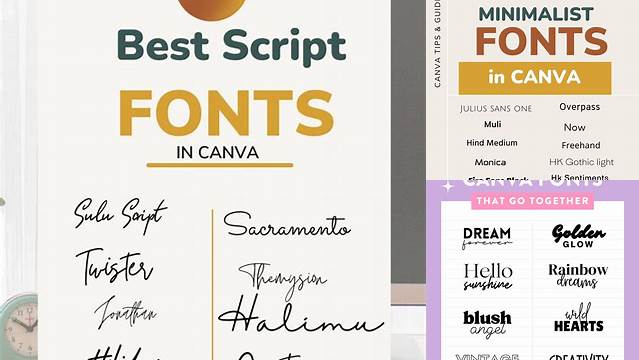
Canva Font Frenzy: Changing All Text Fonts Like A Pro
Hey everyone! Ever wished you could swap out all the text fonts in your Canva design with a single click? Well, guess what? You totally can! Today, we're diving deep into the world of Canva font magic, specifically how to change all text fonts in Canva. Whether you're a design newbie or a seasoned pro, this guide will walk you through the steps, tricks, and even some cool bonus tips to level up your Canva game. So, grab your favorite beverage, get comfy, and let's get started! We'll explore everything from the basics to some advanced techniques, ensuring you're a font-changing ninja by the end of this article.
How to Change Font Styles in Canva: The Quick Guide
Alright, let's kick things off with the basics. Changing font styles in Canva is a breeze, and it's the foundation for everything we'll cover. First things first, open your design in Canva. If you're starting from scratch, choose a template or create a custom size. Now, let's talk about how to select the text you want to modify. You can click directly on the text box to select it. Alternatively, you can select multiple text boxes at once by holding down the Shift key while clicking on each one. This is super handy when you want to change fonts across several elements simultaneously. Once you have your text selected, look at the top toolbar. You'll see a drop-down menu that displays the current font of your selected text. Clicking this will open the font selection panel, where the real fun begins. Here, you'll find a vast library of fonts, categorized by type and style. Canva also suggests fonts based on your brand kit or document styles, making it even easier to find the perfect match. Hover over a font to preview it on your selected text, giving you a real-time look at how it will appear. Once you find your desired font, simply click on it, and bam! Your text is updated. Remember, this method applies to individual text boxes or multiple selections, but we’re aiming for a complete overhaul of your design’s text – all at once.
Let's also talk about some of the nuances. For example, you might find that some fonts work better in specific sizes or weights. Experiment with different font sizes and styles (bold, italic) to see what complements your design best. Canva's text tools also allow you to adjust the font size, spacing, and alignment, giving you even more control over your text's appearance. And, don't forget about the color! You can change the font color from the same toolbar, ensuring your text pops against the background. If you're working with a brand, make sure to use your brand colors and fonts to maintain consistency. Remember to save your work frequently so you don't lose your progress. And, most importantly, have fun! Canva is all about creativity, so don't be afraid to experiment and try new things. That's how you'll discover the perfect font combinations and create stunning designs that captivate your audience.
Canva's Font Features: A Deep Dive
Canva isn’t just about changing fonts; it's a whole ecosystem of font features and tools. Let’s take a deeper dive into what makes Canva's font capabilities so impressive. First up, the font library. Canva boasts a huge selection of fonts, ranging from classic serifs and sans-serifs to playful scripts and modern display fonts. This variety ensures you'll find something that fits your style and brand. You can browse through different font categories, or use the search bar to find specific fonts by name or keyword. Canva's search function is really smart – it anticipates what you might be looking for. Beyond just selecting fonts, Canva offers tools to customize your text. You can adjust the font size, line spacing, letter spacing, and alignment. These features let you fine-tune your text to perfection. For example, increasing line spacing can improve readability in long paragraphs, while adjusting letter spacing can give your text a unique look. Canva also provides options for text effects. You can add shadows, outlines, and other effects to make your text stand out. These effects can be subtle or bold, depending on your design goals. Canva’s text effects are a great way to add depth and visual interest to your text elements. One of the coolest features is the ability to upload your own fonts. If you have a specific font that’s essential to your brand, you can upload it to Canva and use it in your designs. This ensures brand consistency across all your visual materials. Plus, Canva integrates seamlessly with Google Fonts, giving you access to thousands of additional fonts. You can easily browse and use any font available on Google Fonts within your Canva designs. Canva keeps things organized too, with features like font pairing suggestions and font favorites. These tools help you find the perfect font combinations and save your favorite fonts for easy access. Remember, mastering these font features is key to creating professional-looking designs.
Accessing and Using Canva's Font Library
Alright, let’s get down to brass tacks and talk about how to actually access and use Canva’s vast font library. First, you’ll need to have a Canva account, either free or paid. Once you're logged in and have a design open, the process is pretty intuitive. Select a text box. As mentioned earlier, you can click directly on the text or select multiple text boxes by holding down the Shift key. This is super handy if you want to change the font across several elements simultaneously. Once you've selected the text, look up to the top toolbar. This is where the magic happens. You’ll see a drop-down menu displaying the current font of your selected text. Clicking this will unveil the font selection panel, and this is where all the font goodness lives. Here, you'll find the massive library of fonts, neatly organized. You can browse through different categories like serif, sans-serif, handwriting, and more. The categories help you narrow your search. Or, you can use the search bar to look for specific fonts by name or keyword. If you have a specific font in mind, just type it in. Canva’s search is really efficient. It anticipates what you might be looking for, which saves time. Another cool trick is using Canva's font pairing suggestions. Canva often suggests font pairings, which is a fantastic way to discover new font combinations that complement each other. It's like having a personal font stylist. Once you find the font you want, simply click on it to apply it to your selected text. The font will instantly update, allowing you to see how it looks in real-time. If you're working with a brand, make sure to use your brand kit, which lets you save your preferred fonts. This keeps all your designs consistent. Don’t forget to experiment! Try different font sizes, weights, and styles to see what works best for your design. Canva allows you to adjust text spacing, alignment, and color. This is where you fine-tune your text to perfection. Lastly, be sure to explore the option to upload your own fonts. This ensures that you can maintain your brand’s unique identity.
Exploring Font Categories for Unique Designs
Let's delve into the exciting world of font categories, which will help you create unique and visually appealing designs. Canva organizes its fonts into various categories, making it easier to find the perfect typeface for your project. Understanding these categories is essential for making informed font choices. First up, Serif Fonts. These are the classic fonts characterized by small strokes or “serifs” at the end of letters. Serif fonts often exude a sense of tradition, elegance, and authority. They are great for formal documents, headlines, and body text. Examples include Times New Roman, Georgia, and Playfair Display. Next, Sans-Serif Fonts. Sans-serif fonts lack the small strokes found in serif fonts, giving them a clean, modern look. They're excellent for digital design, websites, and anything aiming for a contemporary feel. Popular choices include Arial, Helvetica, and Open Sans. Then, there are Script Fonts. These mimic handwriting, offering a personal and creative touch. Script fonts are perfect for invitations, logos, and anything needing a touch of flair. Think of fonts like Brush Script, Dancing Script, and Great Vibes. Display Fonts are made for making statements. They’re typically bold and eye-catching, used for headlines, posters, and anything that needs to grab attention. They can be quirky, artistic, or anything that suits your needs. Examples include Bebas Neue and Anton. Let's not forget Modern Fonts. Modern fonts combine elements of both serif and sans-serif, with a unique and stylish look. These are often used for branding and contemporary designs. These could be fonts like Montserrat or Poppins. Canva also offers Handwriting Fonts. These have a personal, informal feel, mimicking actual handwriting. They’re ideal for invitations, quotes, and adding a personal touch. Lastly, Monospace Fonts. Monospace fonts assign equal width to each character. They are often used for code, technical documents, and anything that needs a structured, uniform look. Examples include Courier New. Navigating these categories in Canva lets you explore an array of options. Try mixing and matching different font categories to see what creates the best look. Remember, the right font can transform your design from so-so to stunning.
How to Change All Text Fonts in Canva: Step-by-Step Guide
Alright, buckle up, because we’re about to get into the meat of it: changing all text fonts in Canva. Now, Canva doesn't have a single button that changes every font at once (yet!), but don't worry. There are several effective methods. Let’s get to it! The first method, and the most common, is the “Select All and Replace” approach. Start by opening your design in Canva. This works whether you're starting from scratch or working on an existing project. Click on the first text box. Once selected, drag your mouse over the entire canvas. This action will select all text boxes. This method is perfect for larger designs. Next, go to the font selection menu. You'll find this in the top toolbar. Click on the font drop-down menu to open the font options. Browse through the library and select your desired font. Once you click on the new font, all selected text boxes will update. This is a great way to change every text instance in your project. The second method is using the “Styles” feature. This is especially helpful if you use a brand kit. Open your design in Canva. Go to the